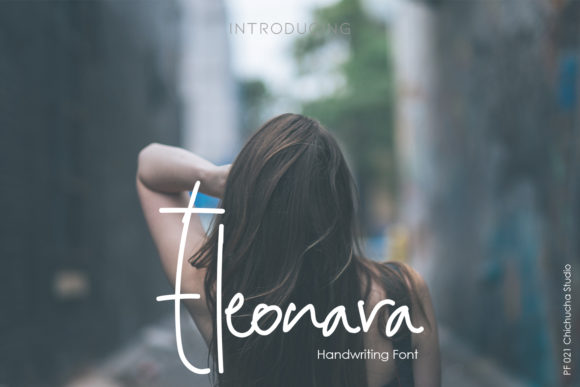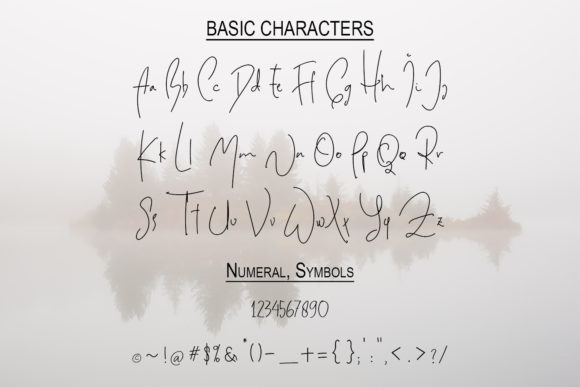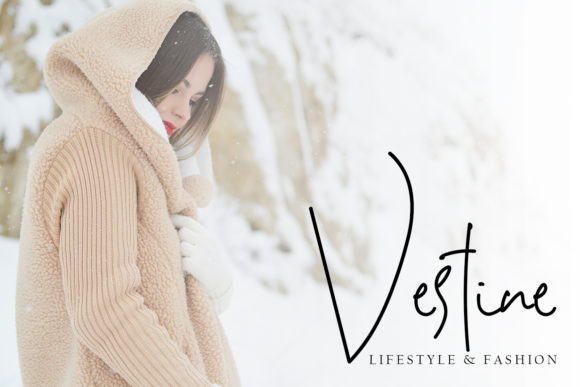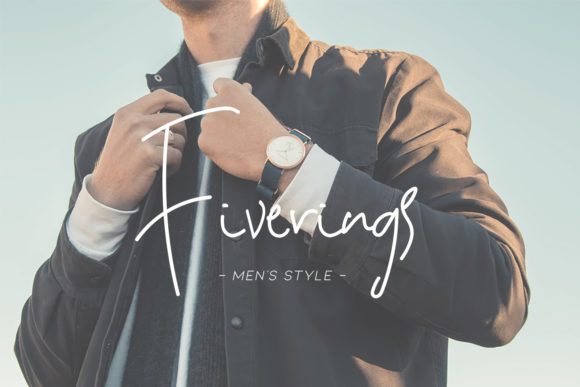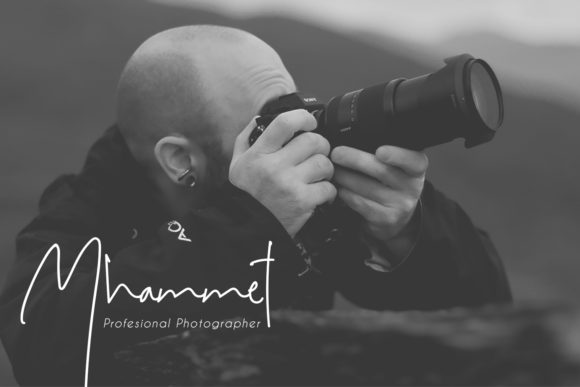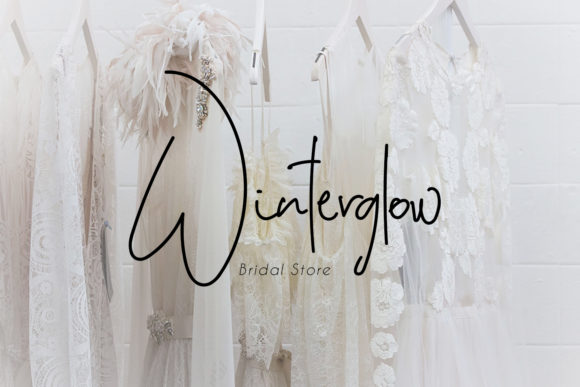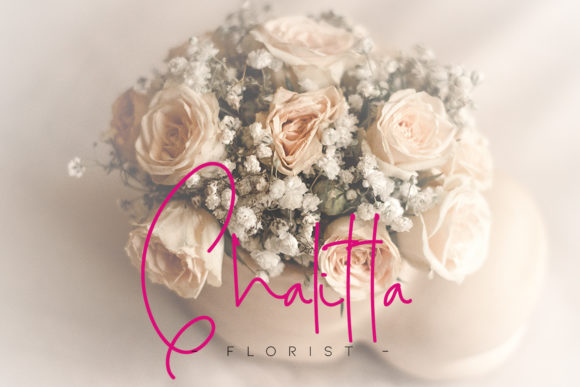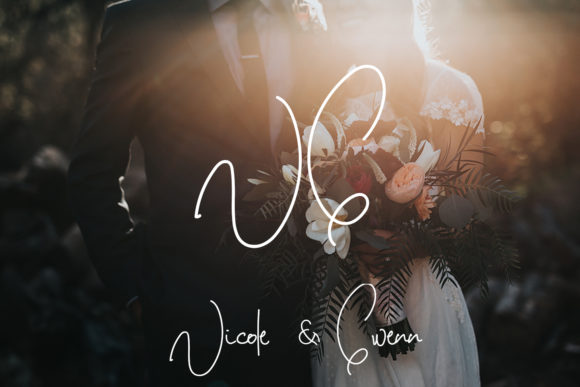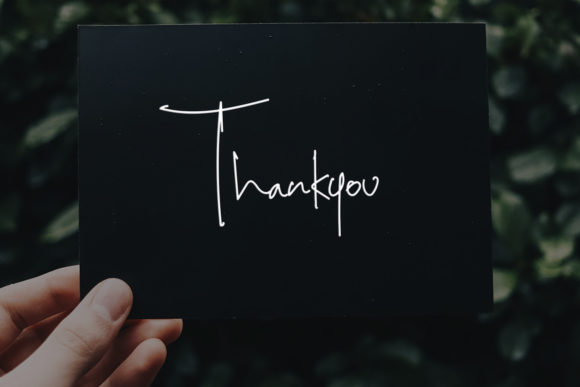
Eleonara Font
About Eleonara Font
Eleonara is a unique and delicate handwritten font. Incredibly versatile, this font fits a wide pool of designs, elevating them to the highest levels. Add this font to your favorite creative ideas and notice how it makes them come alive!